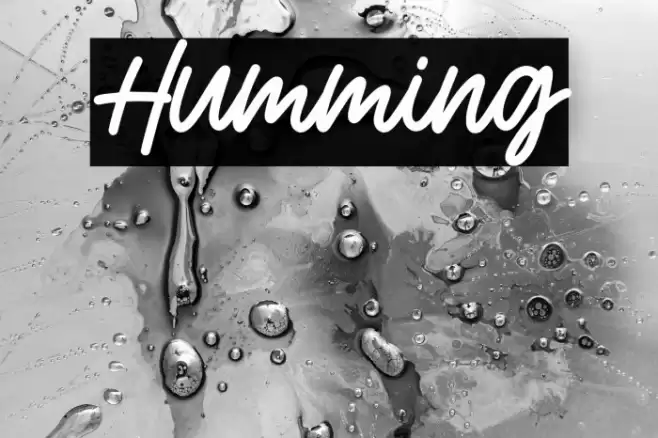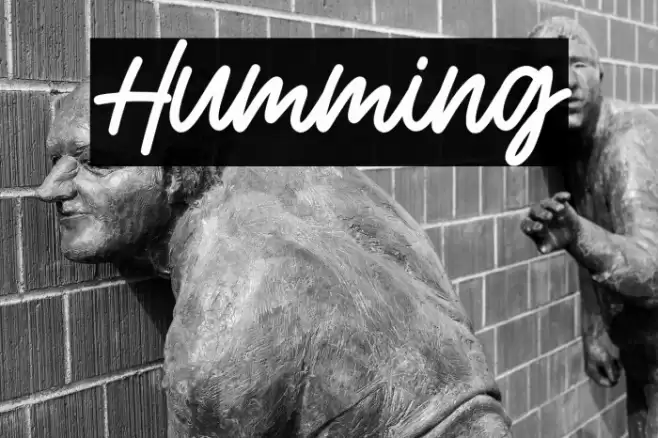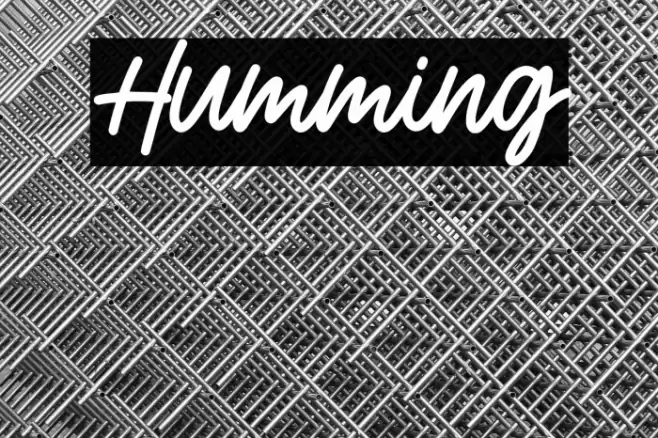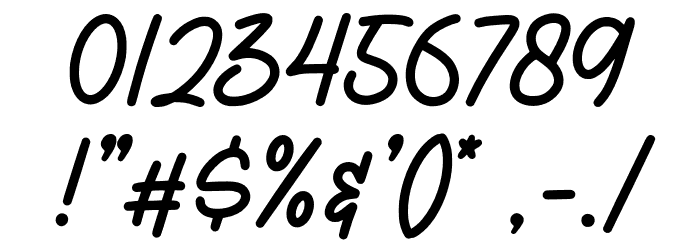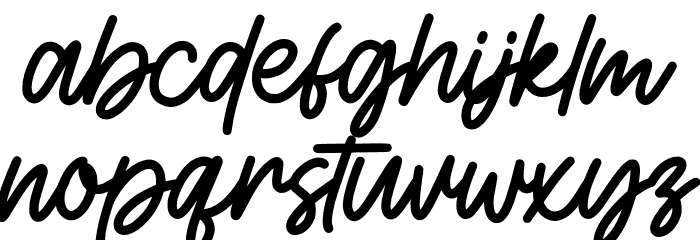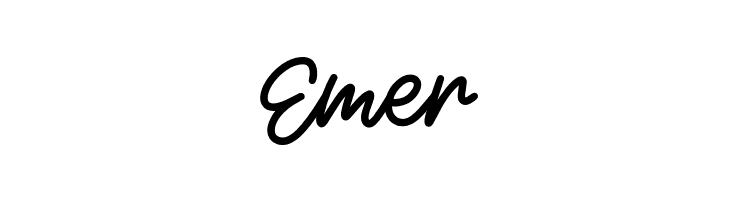
Humming Font
Humming Description
This font features a lively and flowing script style, characterized by its smooth, connected strokes that mimic natural handwriting. The letters are slightly slanted, adding a sense of motion and elegance. The uppercase letters are bold and prominent, while the lowercase letters maintain a consistent flow, enhancing readability. Numbers and special characters are designed with the same fluidity, ensuring a cohesive look across all text. The overall appearance is both casual and sophisticated, making it versatile for various design needs.
A lively, flowing script font with smooth, connected strokes from Regular fonts.
- Proposed Projects: Ideal for wedding invitations, greeting cards, personal branding, and social media graphics.
- Use Case: Logos, Headlines, Invitations